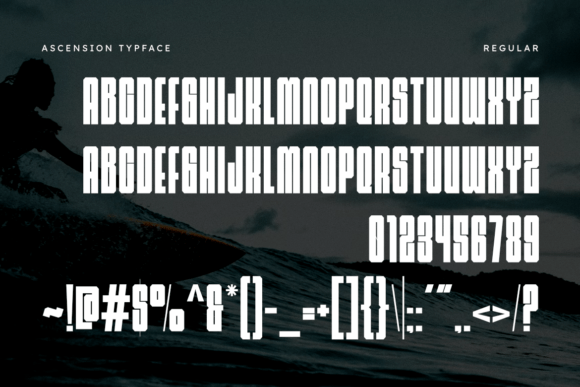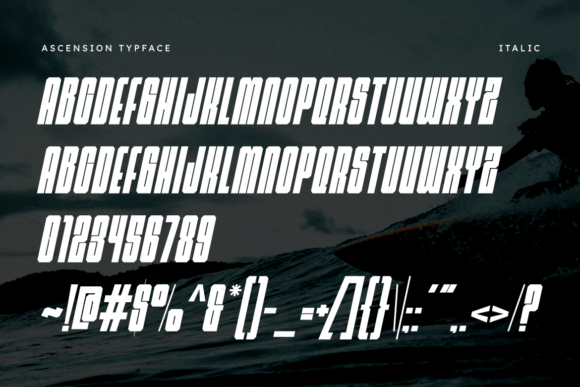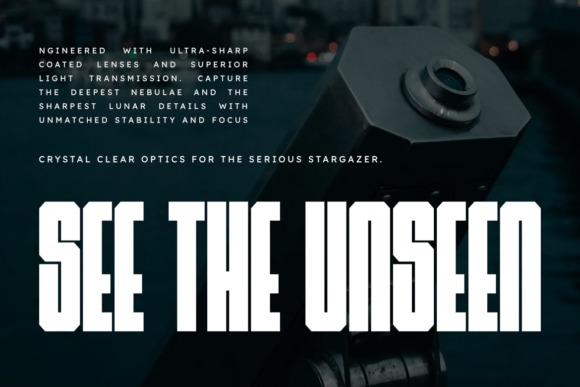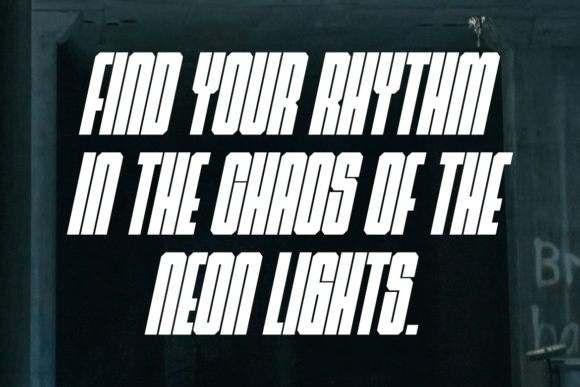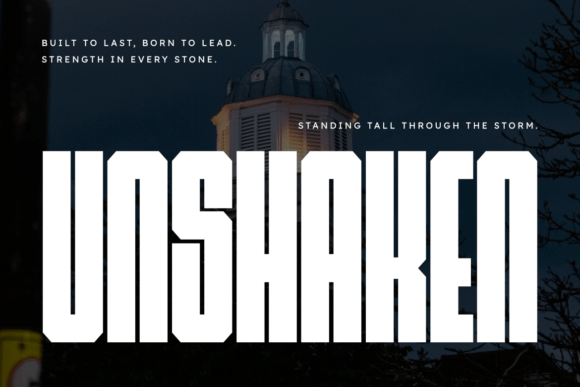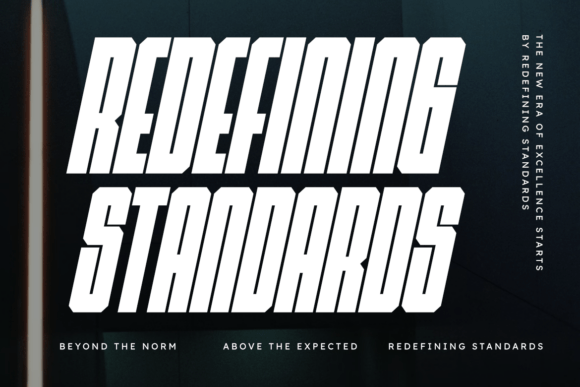
The Power of Ascension Font: Elevate Your Designs with Impact
I’ll never forget the time I was working on a project for a sports brand, and I needed a font that could convey energy, strength, and modernity. I scoured the internet, tried out countless fonts, but none seemed to fit the bill. That was until I stumbled upon Ascension Font. With its bold and ultra-condensed sans serif design, it was like a breath of fresh air. In this article, I’ll share my experience with Ascension Font, its features, and how to make the most of it in your designs.
First Impressions: A Bold and Confident Font
Ascension Font is designed for impactful typography, and boy, does it deliver! Its tall structure and compact width make it perfect for strong headlines, modern posters, album covers, sports graphics, branding, and high-impact advertising. The clean and confident design gives your visuals a striking and professional look that’s hard to ignore.
• ✨ Bold and ultra-condensed design: perfect for making a statement
• ✅ Clean and confident look: adds a professional touch to your designs
• 🌟 High-impact advertising: guaranteed to grab attention
• 📦 Versatile: suitable for various design projects, from posters to branding
While Ascension Font is an excellent choice, there are a few things to keep in mind:
• 🤔 Legibility at small sizes: due to its ultra-condensed design, it may be challenging to read at very small sizes
• ⚠️ Overuse: be careful not to overuse the font, as it can become overwhelming
Ascension Font comes with a range of OpenType features, glyphs, and stylistic alternates that can enhance your designs. These features include:
• Stylistic alternates: offering alternative letterforms for added creativity
• Glyphs: providing access to additional characters, such as ligatures and ornaments
Ascension Font was designed with the goal of creating a bold and ultra-condensed sans serif font that would make a statement. Inspired by modern sports graphics and high-impact advertising, the designer aimed to create a font that would convey energy, strength, and confidence. Through a combination of traditional typography techniques and digital design tools, Ascension Font was born.
Font Name Ascension Font
Author Funtype Co.
Q: What is Ascension Font best suited for?
A: Ascension Font is perfect for strong headlines, modern posters, album covers, sports graphics, branding, and high-impact advertising.
Q: Can I use Ascension Font for body text?
A: While Ascension Font is primarily designed for headlines, it can be used for body text in certain contexts. However, due to its ultra-condensed design, it may be challenging to read at small sizes.
Q: Is Ascension Font available in different weights?
A: Currently, Ascension Font is available in a single, bold weight. However, the designer may release additional weights in the future.